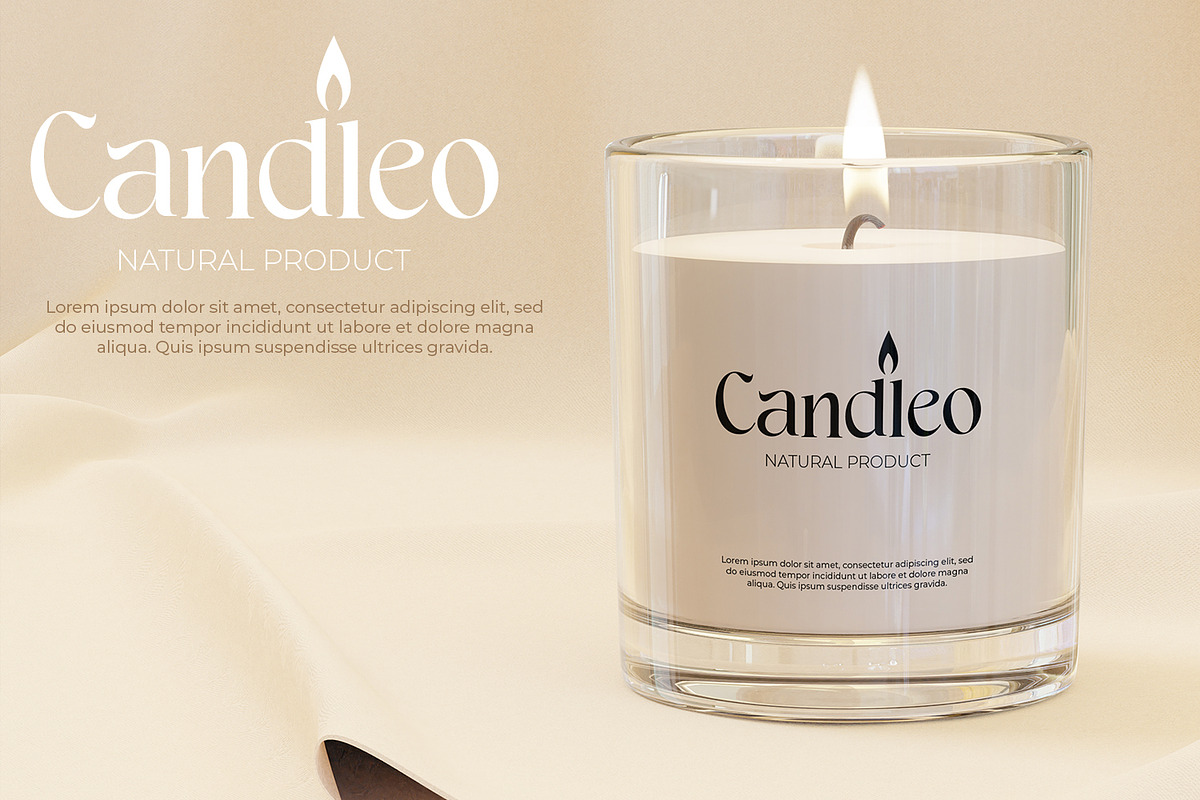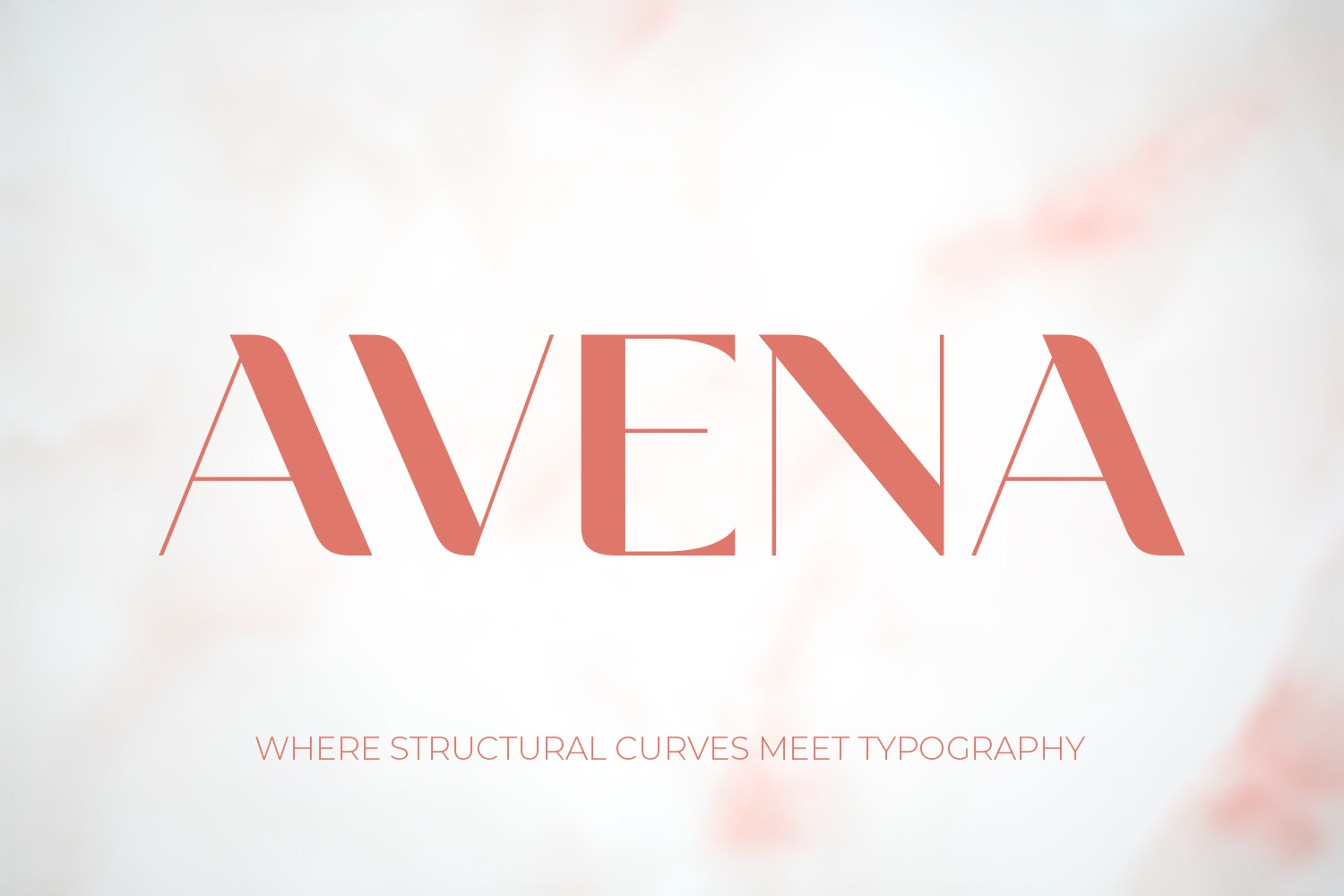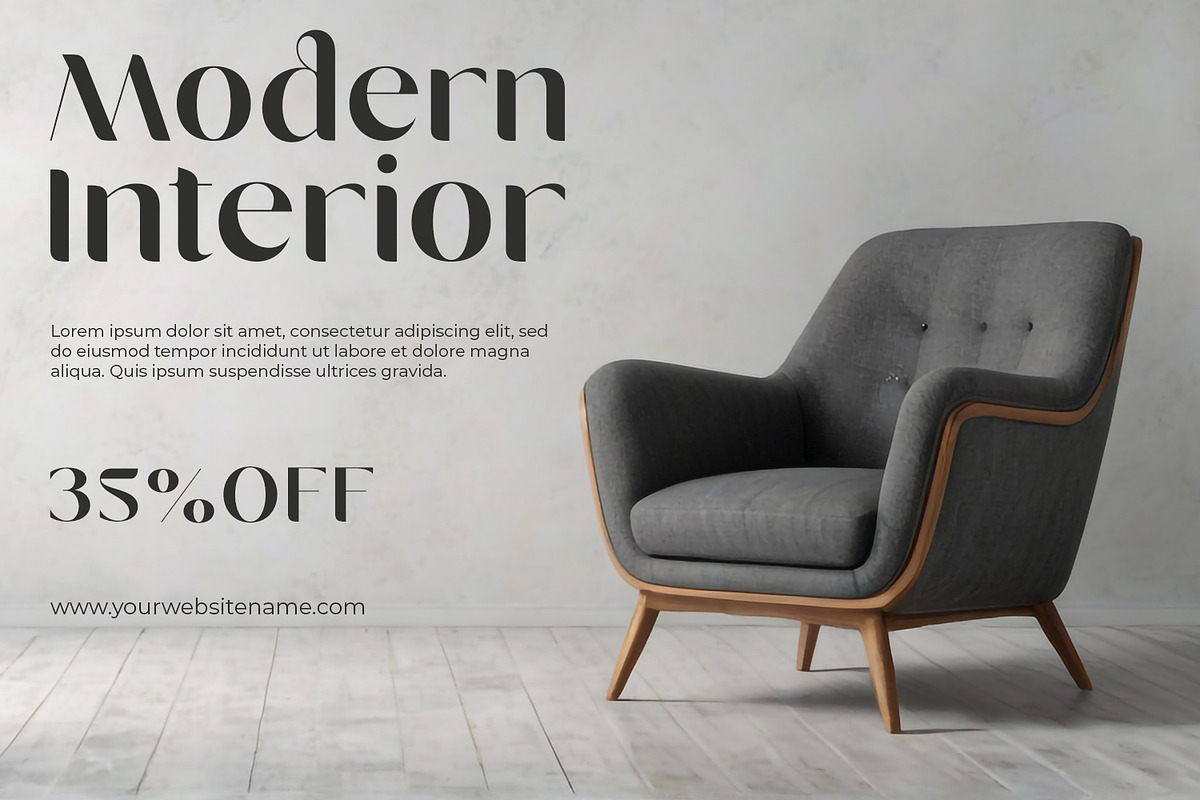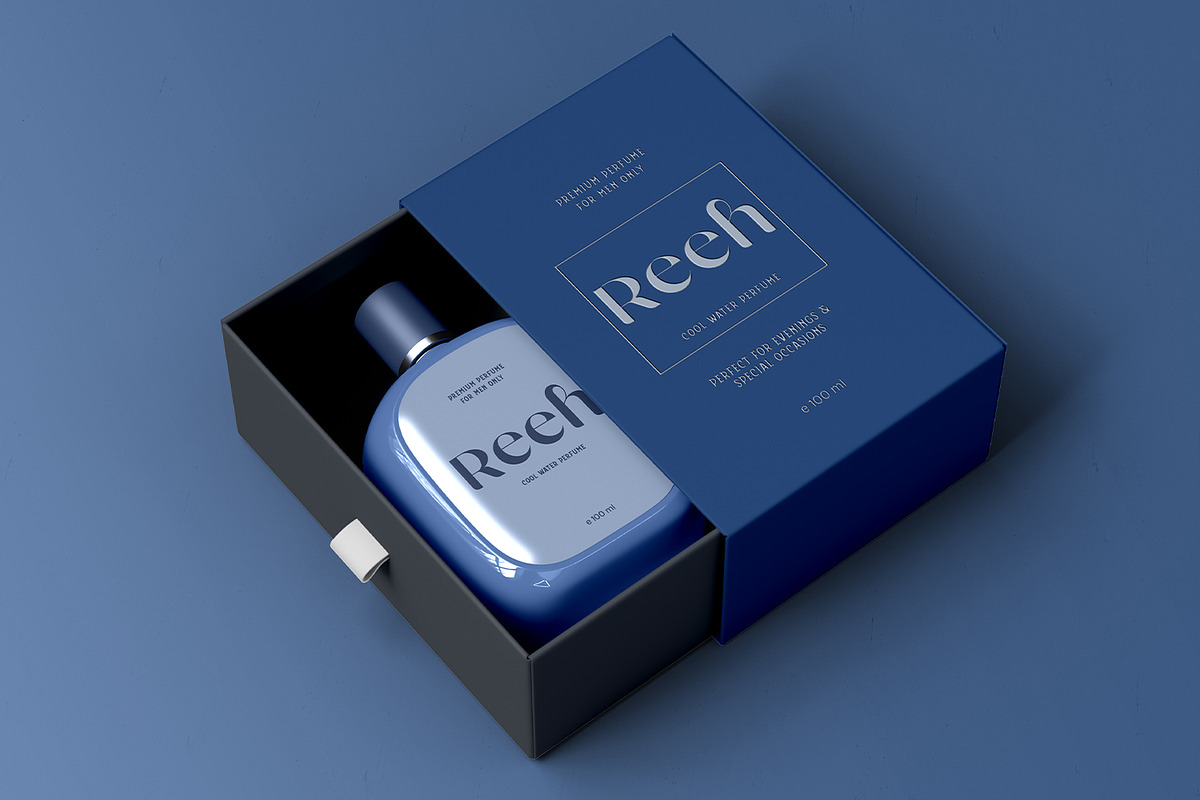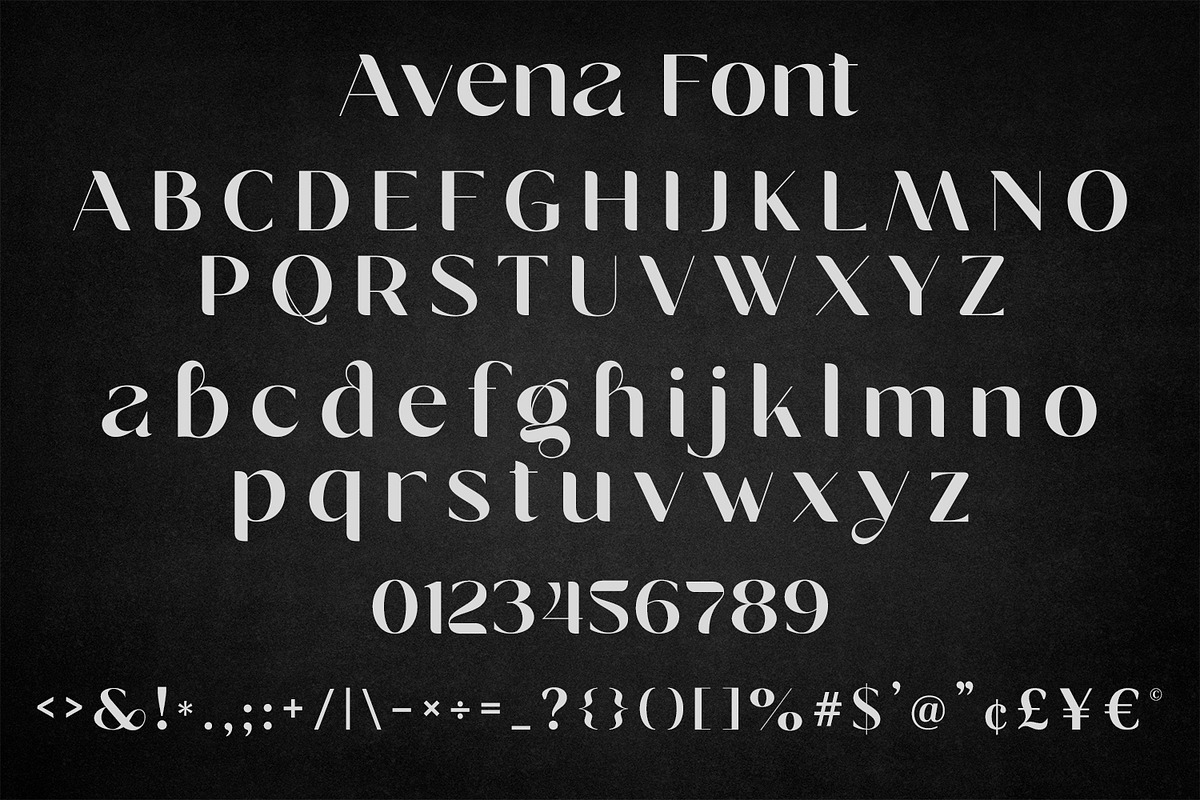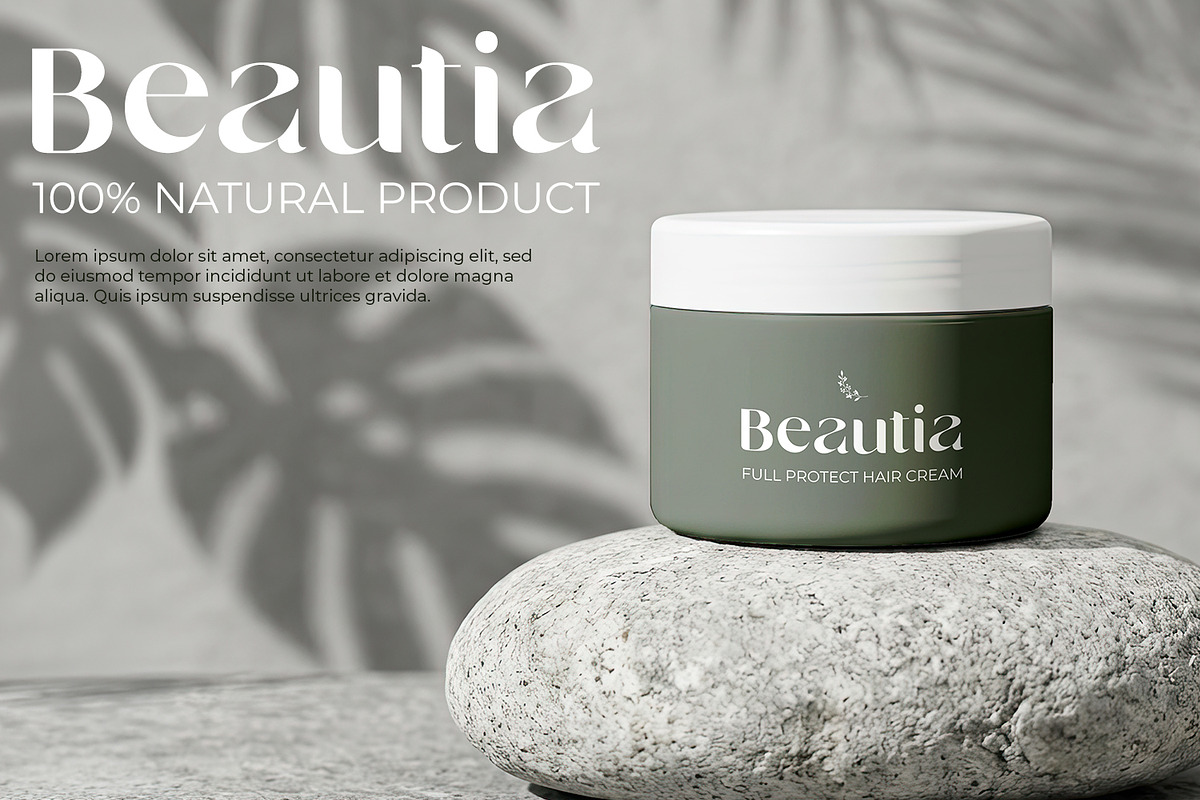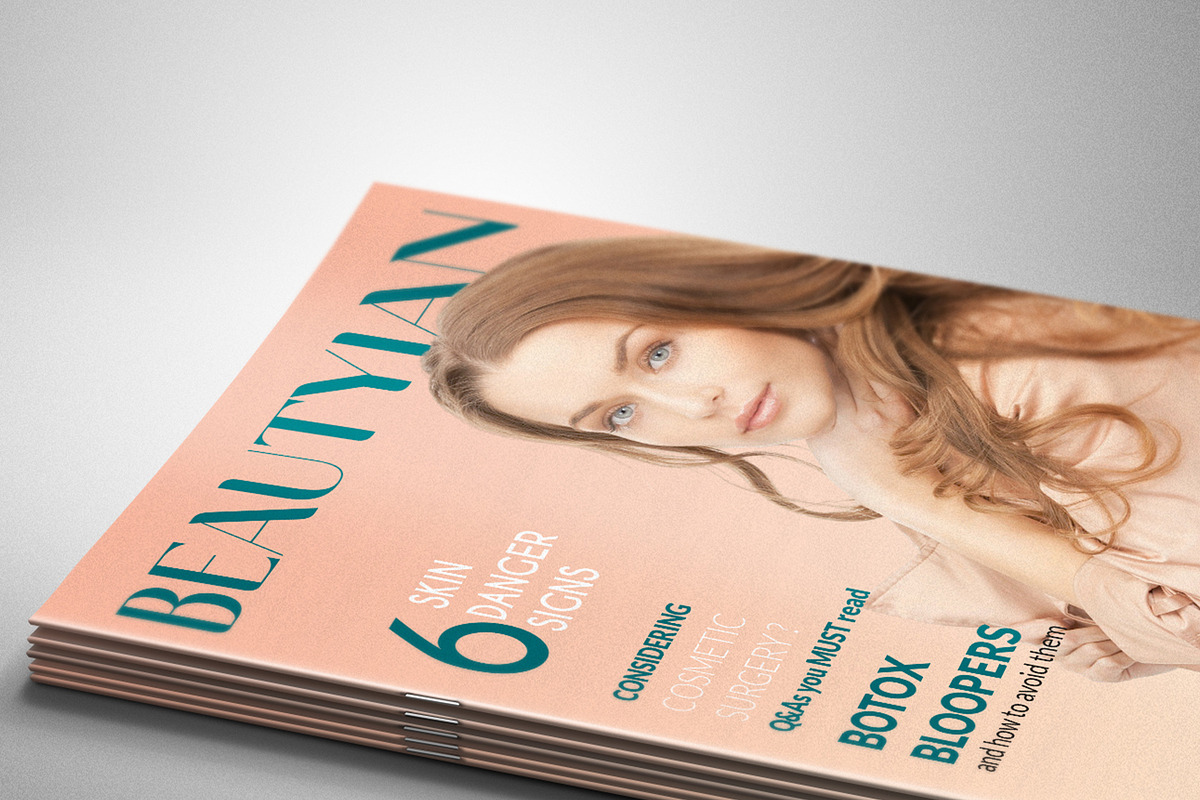
Avena - Modern Editorial Serif Font
Avena is a versatile, high-contrast display serif font designed for maximum visual impact and exceptional legibility. Featuring unique structural curves and carefully crafted stylistic alternates, this typography is perfect for a wide range of creative projects. It is highly suitable for editorial layouts, corporate identity, product packaging, botanical home goods, and vibrant 3D lettering applications. The font includes complete uppercase and lowercase alphabets, numerals, and standard punctuation, offering designers the flexibility needed to create clean, striking, and modern compositions. Files included: OTF, TTF, and WOFF.